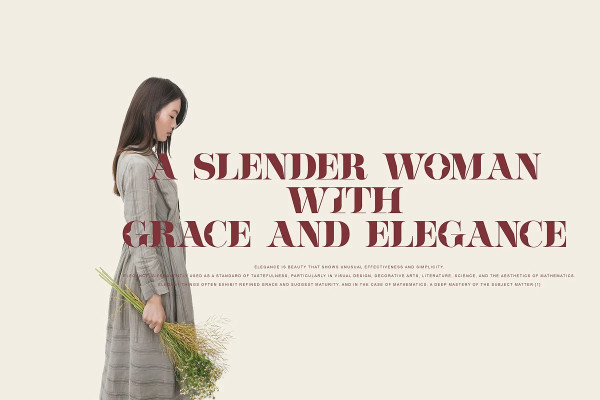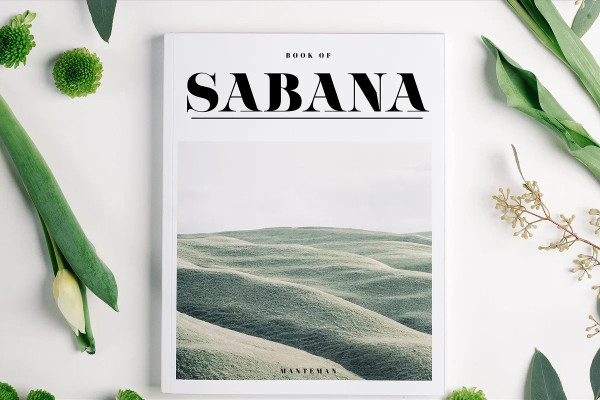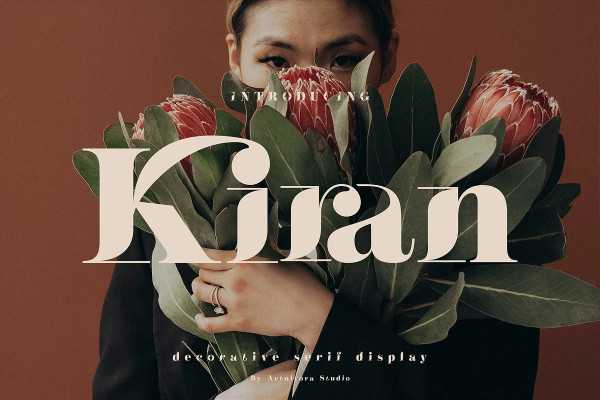
Kiran Typeface
Kiran Typeface, a simple and decorative serif font. So perfect for you who needs a typeface for logo designs, magazine, social media, brochure, and many more.